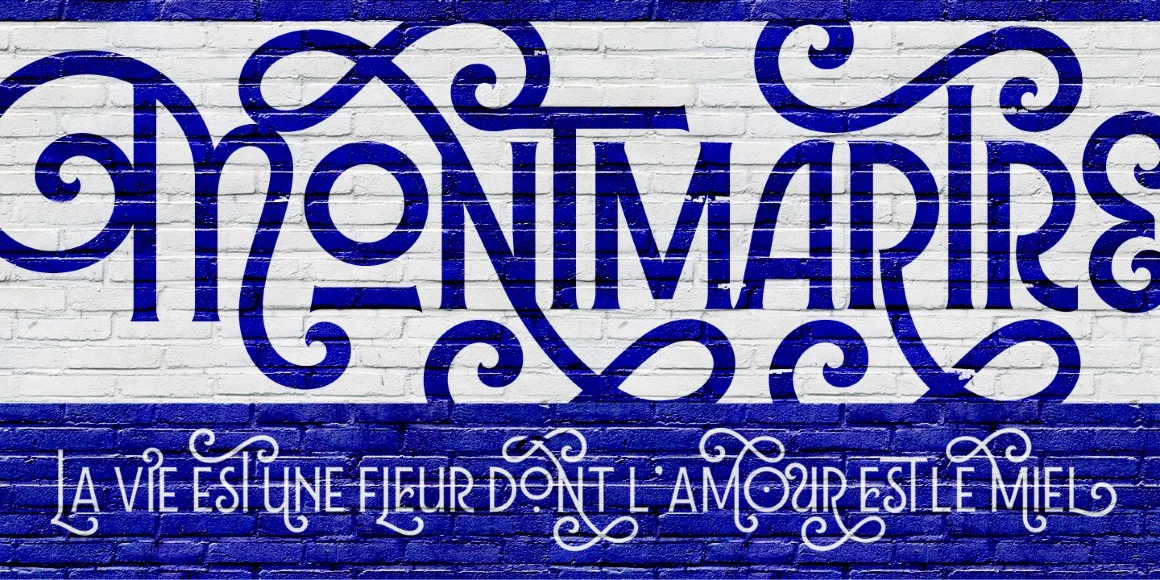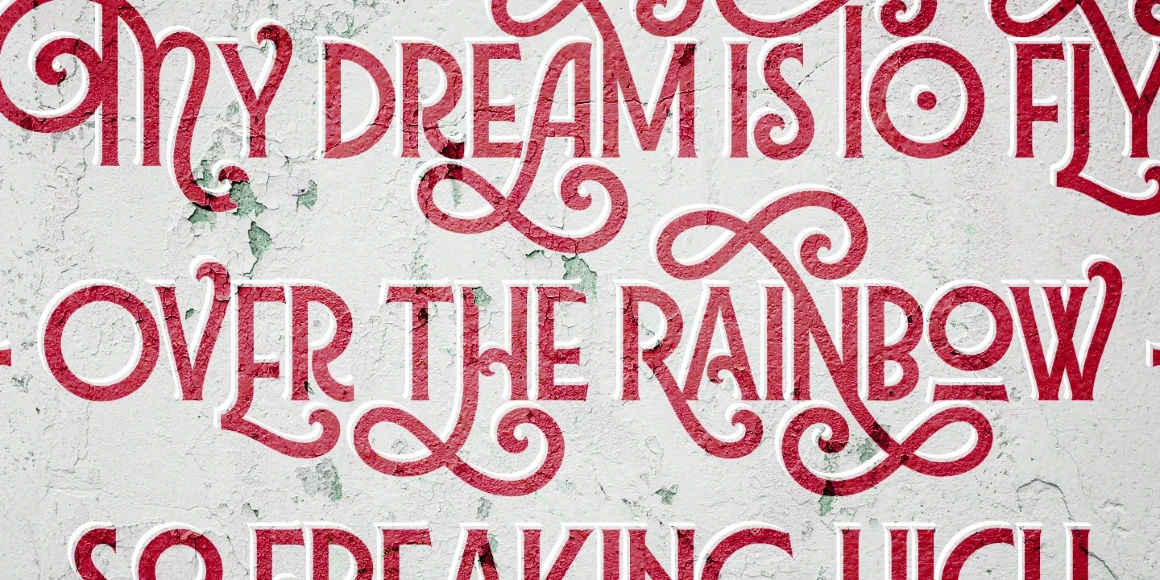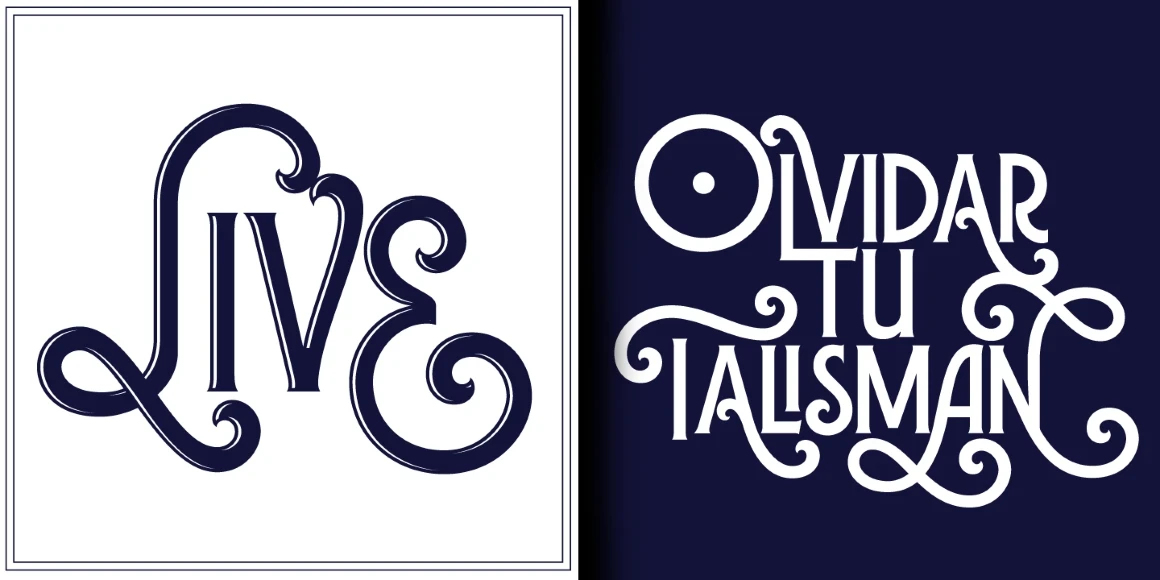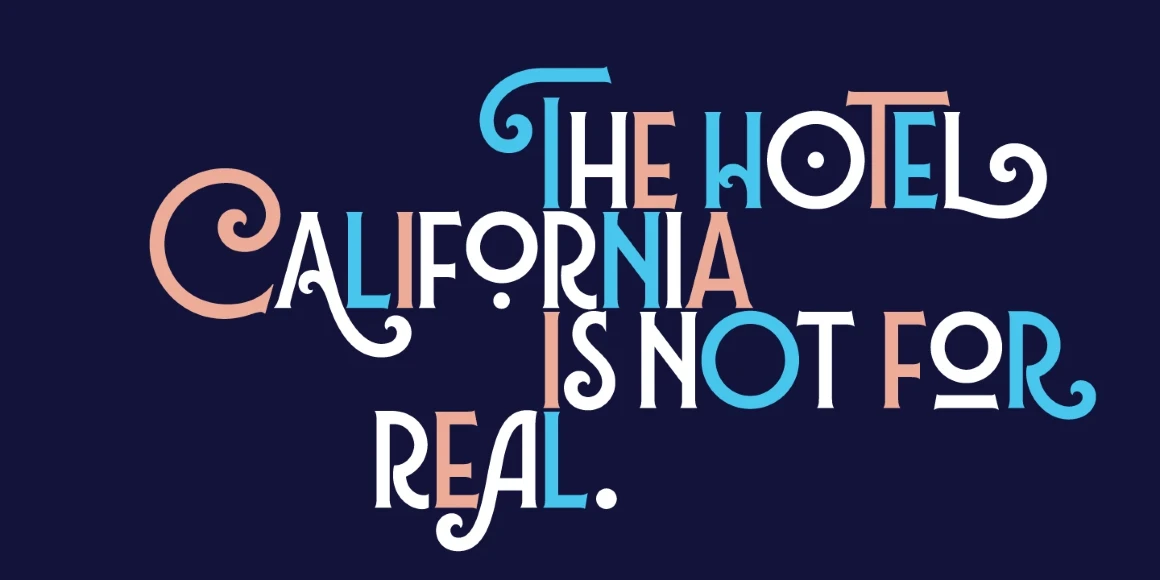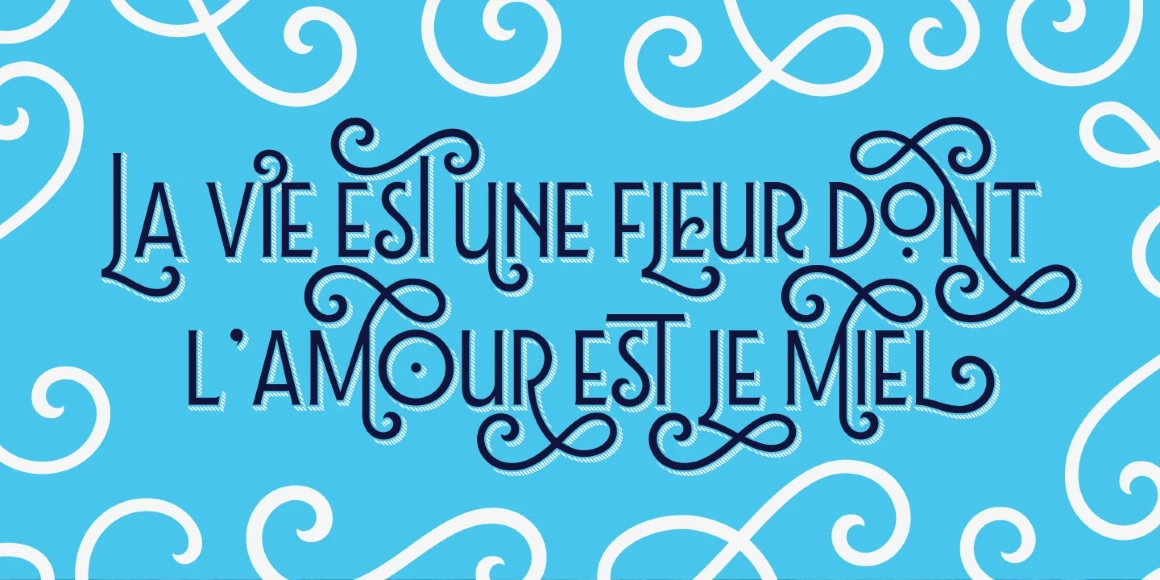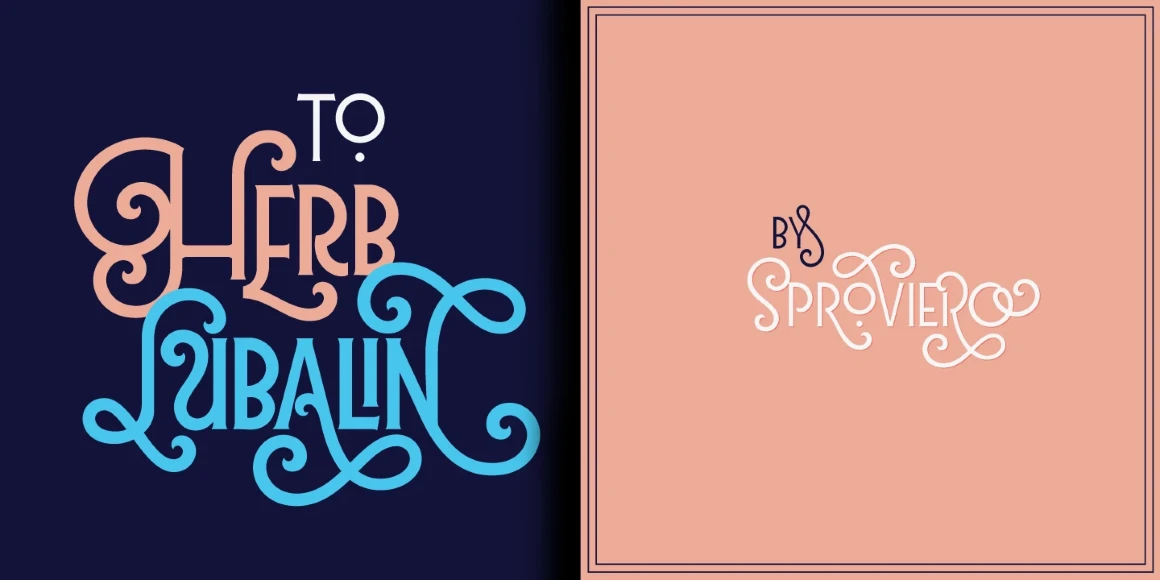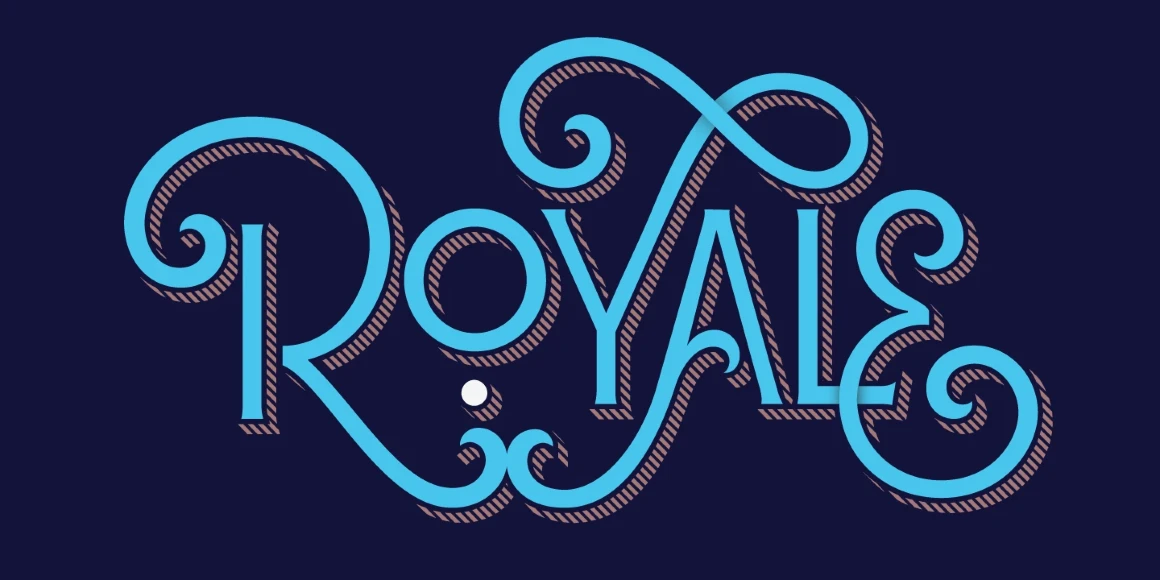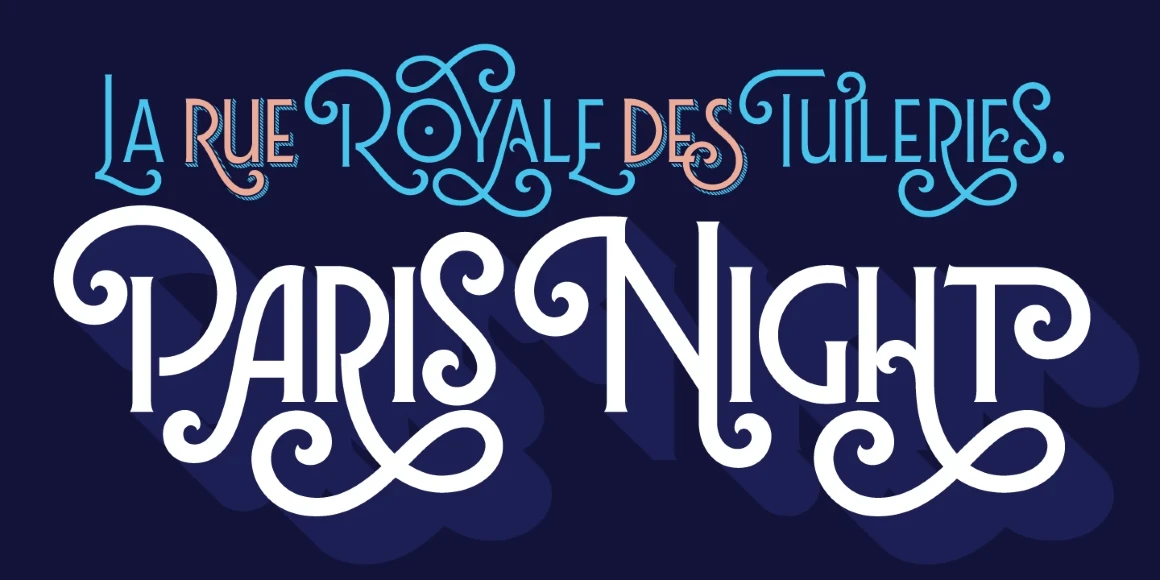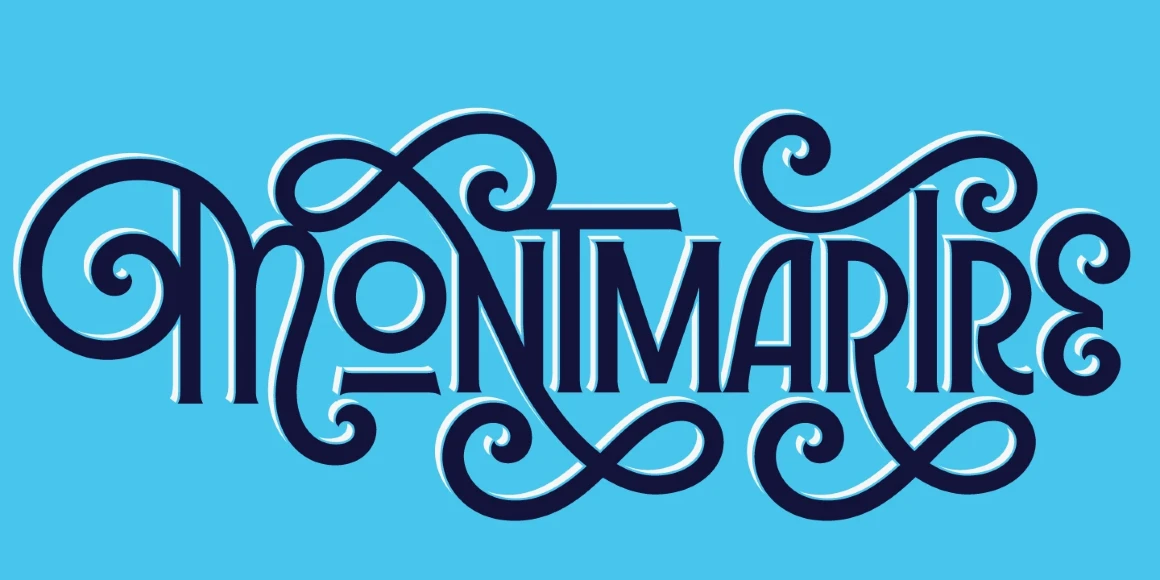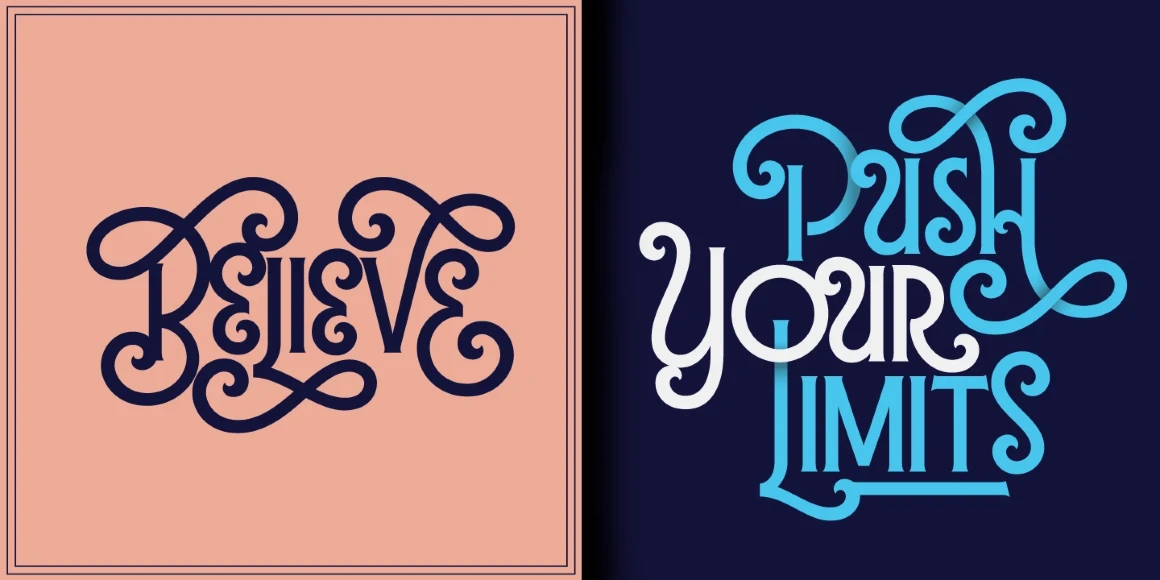
Lubaline
By Maximiliano Sproviero
Lubaline is a decorative multi-layered all-caps semi-serif typeface family with eclectic Art Deco style, further exaggerated with Shadow, Extras, and swashes aplenty. It is also Maximiliano Sproviero’s humble tribute to the work of Herb Lubalin, a typographic icon who smashed the taboos and sacred rules of type design. Lubaline is ready to perfect your exuberant design briefs, especially those related to branding, editorial, packaging, or anywhere you want to make an eye-grabbing statement.